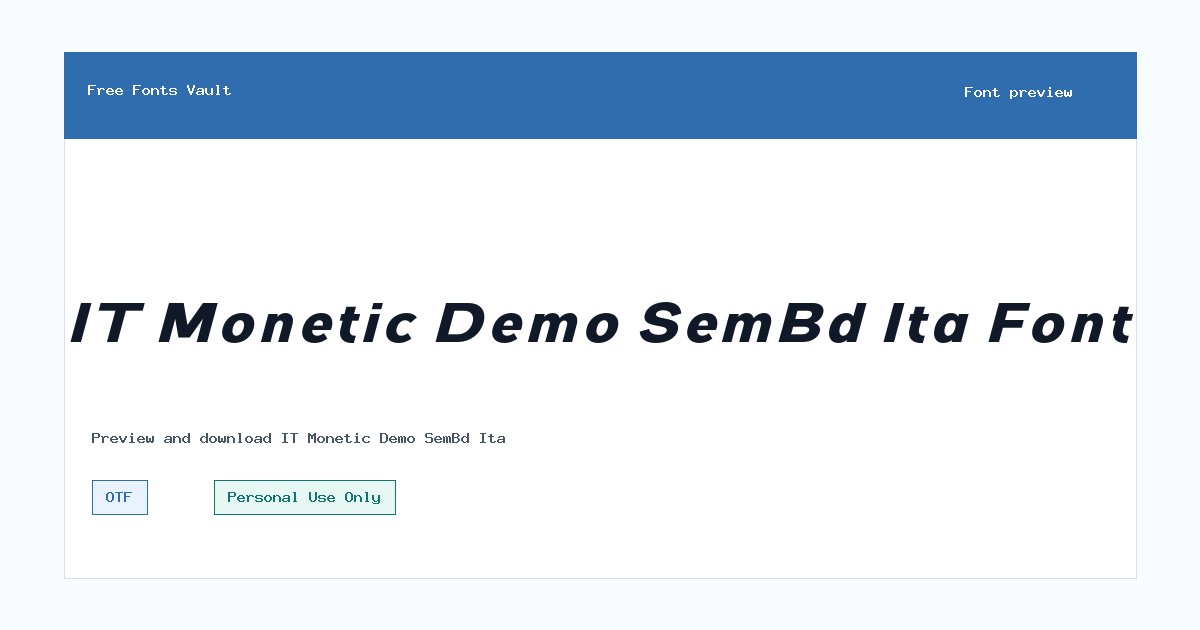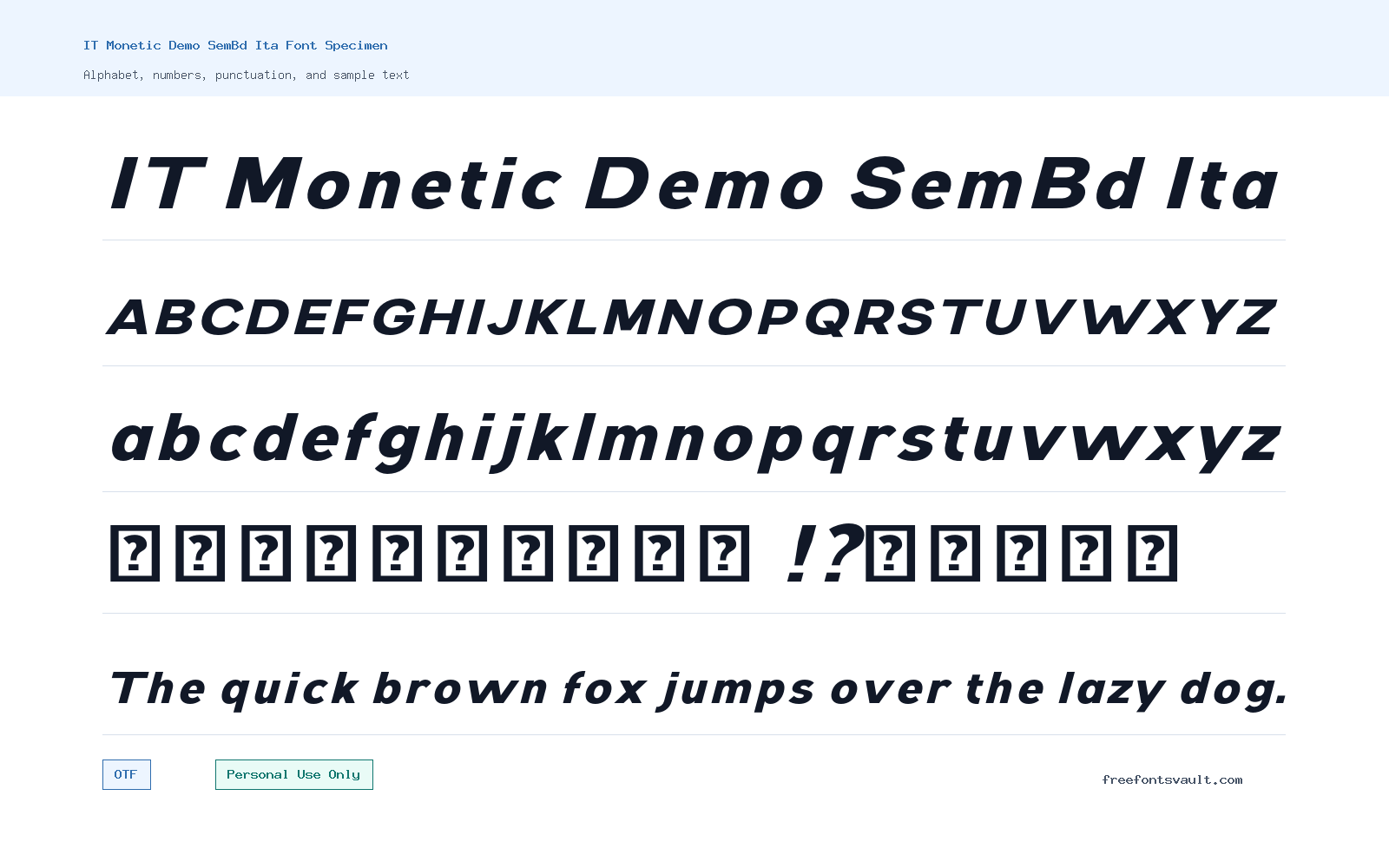
IT Monetic Demo SemBd Ita
IT Monetic Demo SemBd Ita font.
IT Monetic Demo SemBd Ita is a personal-use semi-bold italic sans serif font from Indotype. It is best treated as a strong slanted display style for testing headlines, branding drafts, posters, and short design compositions.
About IT Monetic Demo SemBd Ita
IT Monetic Demo SemBd Ita is a 600-weight italic OpenType font in the IT Monetic demo family. The style name points to a semi-bold italic cut, so the font is likely most useful where you want more emphasis than a regular italic without moving into a very heavy display weight. Because it is a sans serif, it can work well in clean layouts, modern mockups, and short pieces of text where the slant adds motion or emphasis. Use the preview field to test the exact words you plan to use, because italic fonts can change the rhythm of a logo, title, or callout very quickly.
For design work, this font makes the most sense in short settings: poster headings, social graphics, web hero text, badge text, packaging mockups, editorial pull quotes, and logo exploration. A semi-bold italic style can be useful when the design needs direction or energy, but it should be tested carefully at small sizes. Slanted letterforms often look tighter than upright styles, so check spacing between letters, especially in all-caps words, names, and short brand marks. If you are testing it for a logo, try it in black and white first, then review it at both large and small sizes before building a full visual system around it.
For web mockups, IT Monetic Demo SemBd Ita can help you explore headline tone, navigation accents, button labels, or campaign banners. It is not the safest first choice for long paragraphs, legal copy, dense menus, or body text, because italic styles can become tiring when used for extended reading. Pair it with a plain upright sans serif for body copy, captions, and interface text. A simple geometric or humanist sans serif can keep the layout readable while allowing this italic style to carry the emphasis. If you want a more editorial look, pair it with a restrained serif for article text and use IT Monetic Demo SemBd Ita only for titles or highlighted phrases.
- Semi-bold italic sans serif style with a 600 weight, useful for emphasized headings and short display text.
- Poster titles and event graphics that need a slanted, semi-bold sans serif look.
- Logo drafts, wordmarks, and branding explorations for personal concept work.
- Web hero mockups, campaign banners, and short interface accents.
- Social media graphics, quote cards, and thumbnail text.
- Editorial pull quotes, section headers, and short promotional lines.
Use IT Monetic Demo SemBd Ita mainly for short text. Test your exact headline, logo name, or poster title in the preview before downloading. Check spacing in all caps, avoid long paragraphs, and pair it with a neutral upright font for body copy. For commercial projects, confirm licensing first.
What kind of font is IT Monetic Demo SemBd Ita?
It is a semi-bold italic sans serif font. The style is suited to short, emphasized text rather than long reading passages.
Is this font good for body text?
It is better for headings, accents, and display text. Italic styles can be harder to read in long paragraphs, so pair it with an upright text font.